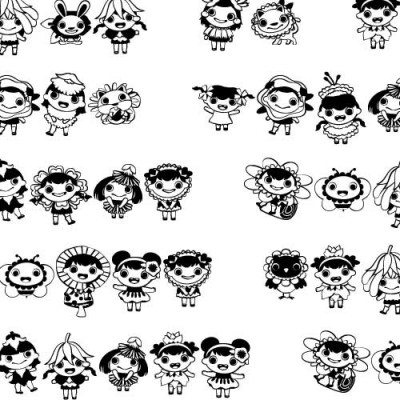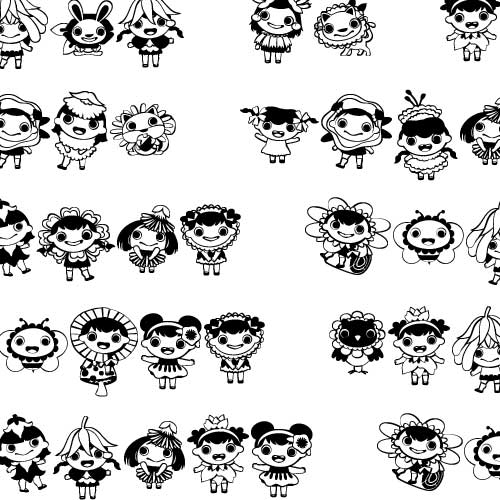
DB Happy Buds - DB
This adorable doodlebat font features 26 happy friends dressed as beautiful flowers. Perfect for Spring, cards, crafts, gifts, decor, planner stickers, classrooms, scrapbook pages and more!